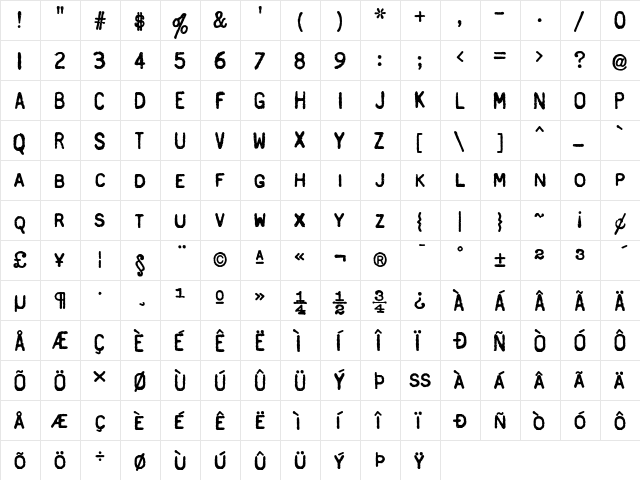
Military Document AOE Regular
Design Context for Military Document AOE Typeface
Military Document AOE has the no-nonsense character of military stencilling and tactical signage, projecting authority and directness.
A strong choice for security brands, outdoor gear, and high-stakes visual communication.
Font Pairing: Use alongside a condensed or geometric sans for supporting copy — keep the pairing bold, functional, and free of ornament.
Pro Tip: Try Military Document AOE in all-caps for the most authentic military signage feel. It pairs well with stark, minimal layouts and muted colour palettes.